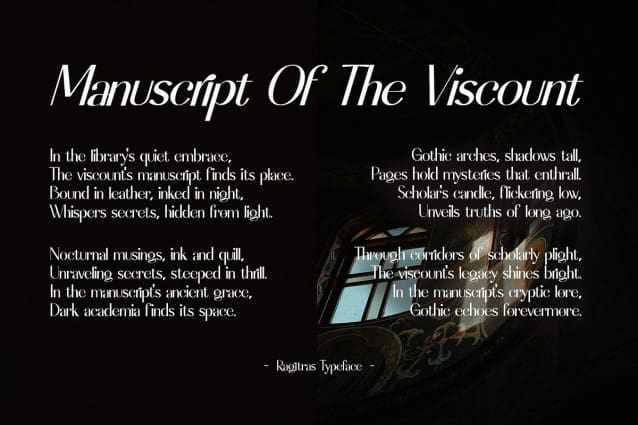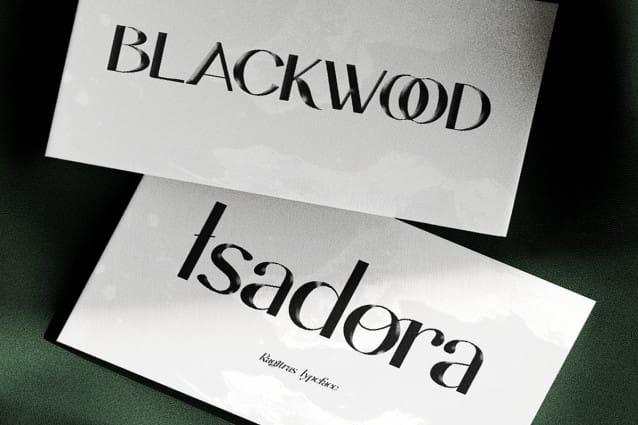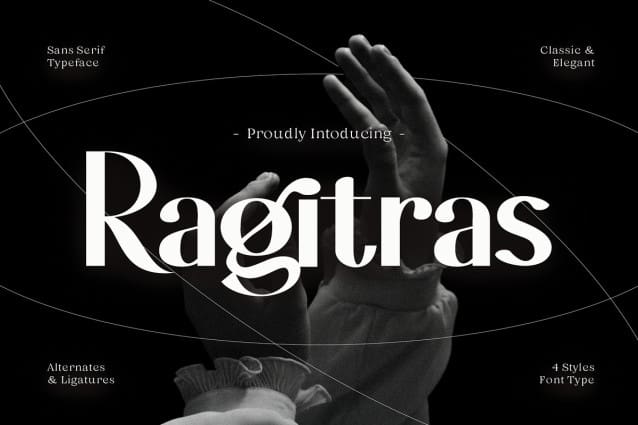
Ragitras Font
Ragitras Font – is a captivating display serif font that exudes sophistication. Featuring four weight styles (regular, italic, bold, and bold italic), Ragitras offers the perfect balance of elegance and versatility for your design projects. Ragitras goes beyond the ordinary with its unique character shapes. Each letter boasts a touch of individuality, adding a touch of personality to your headlines, logos, and branding materials.
Ragitras Font is Ideal for: Logos and branding that demand attention and convey a sense of luxury, Elegant wedding invitations and stationery that leave a lasting impression, High-end packaging designs that elevate your product’s perceived value, Magazine layouts and marketing materials that crave a touch of timeless sophistication, Any design project where a unique and beautiful serif font is desired.